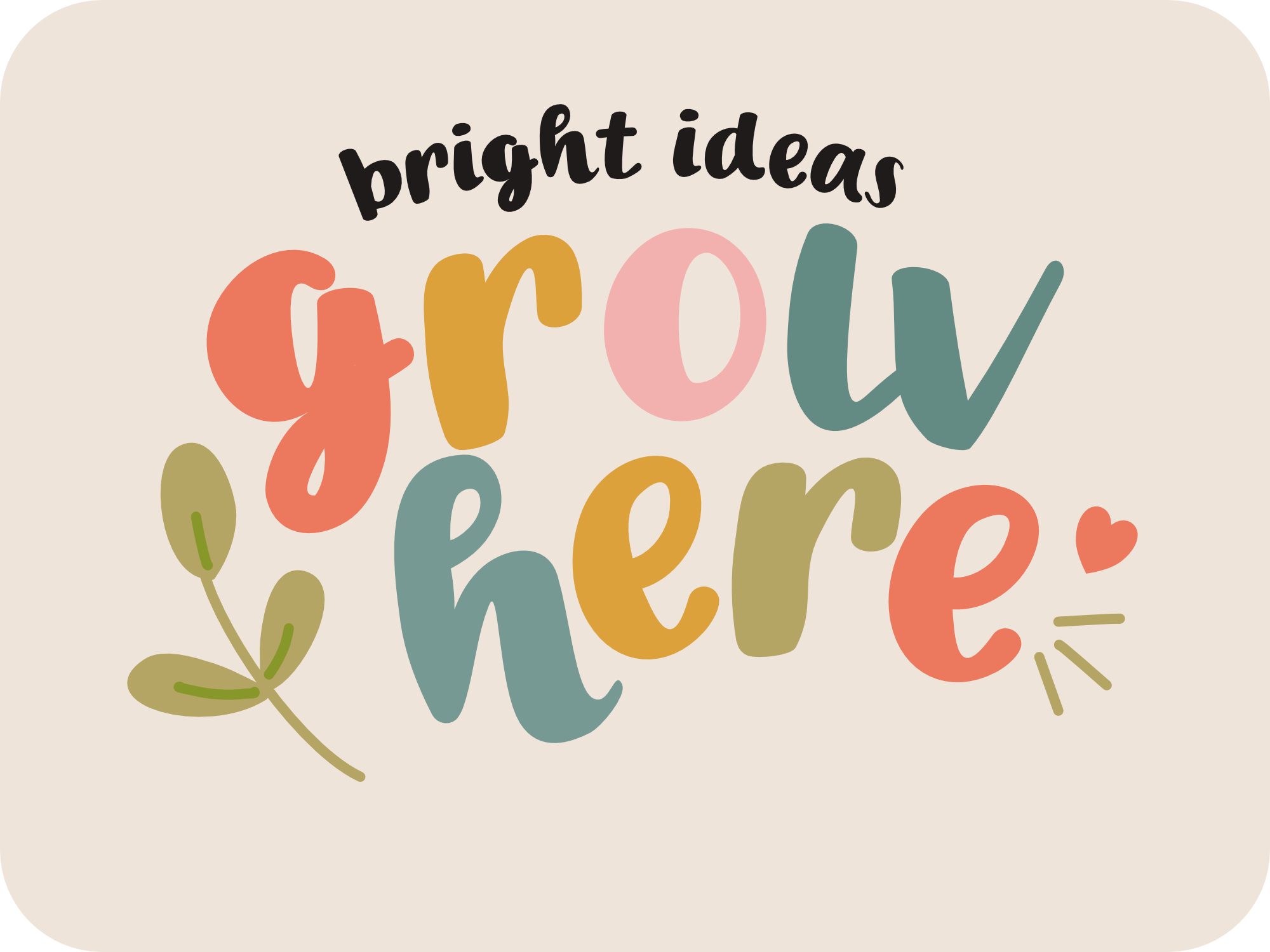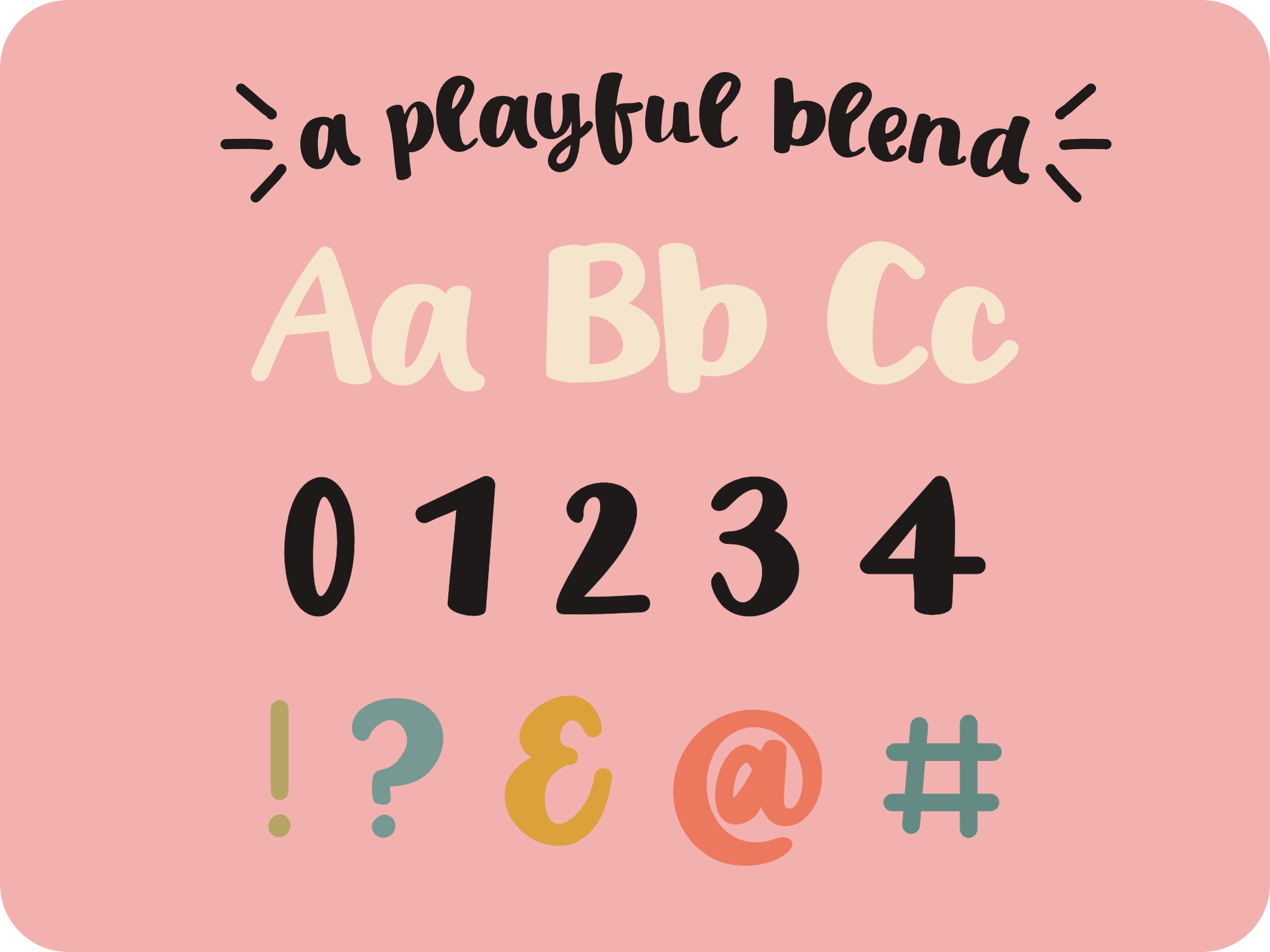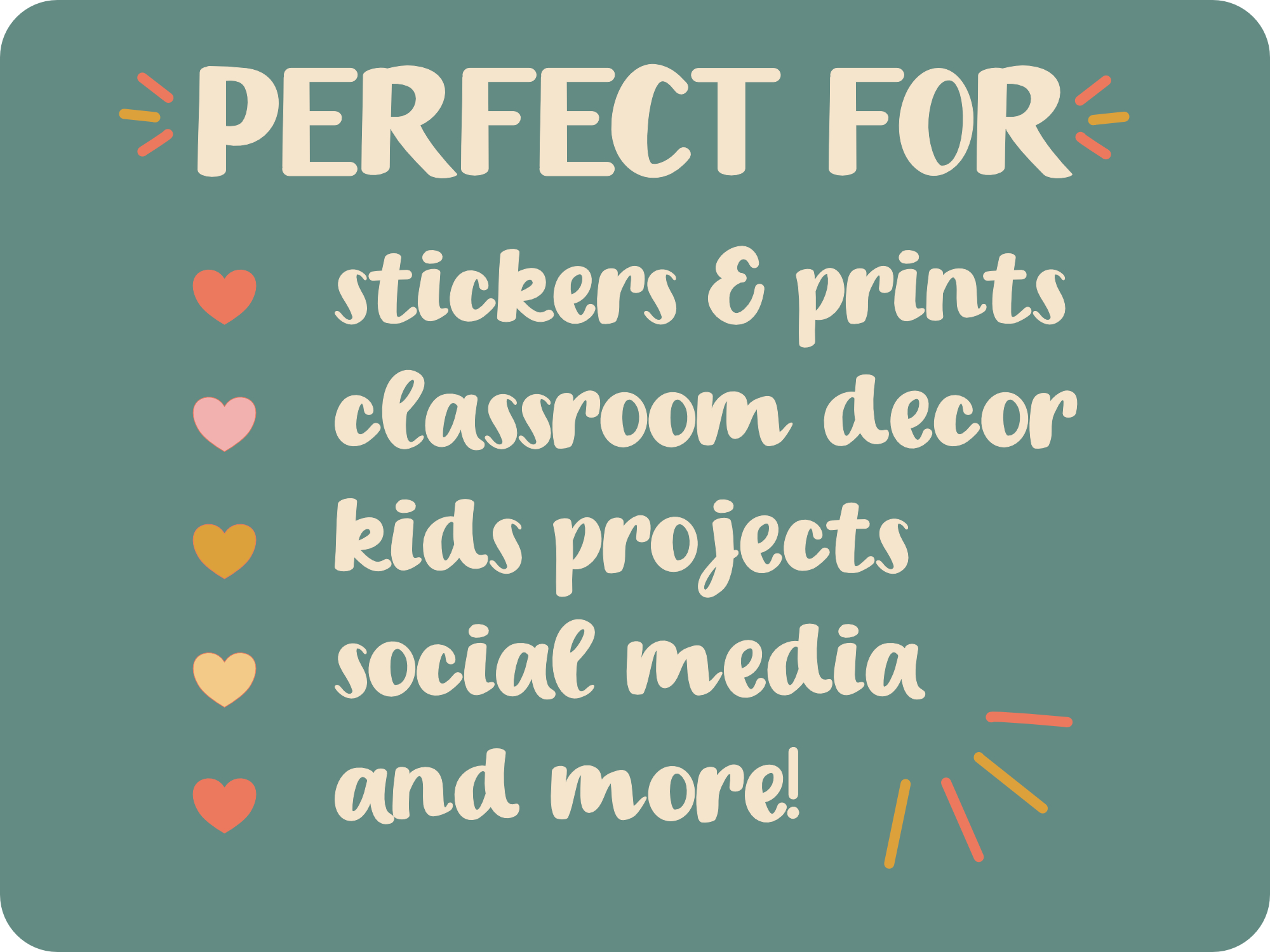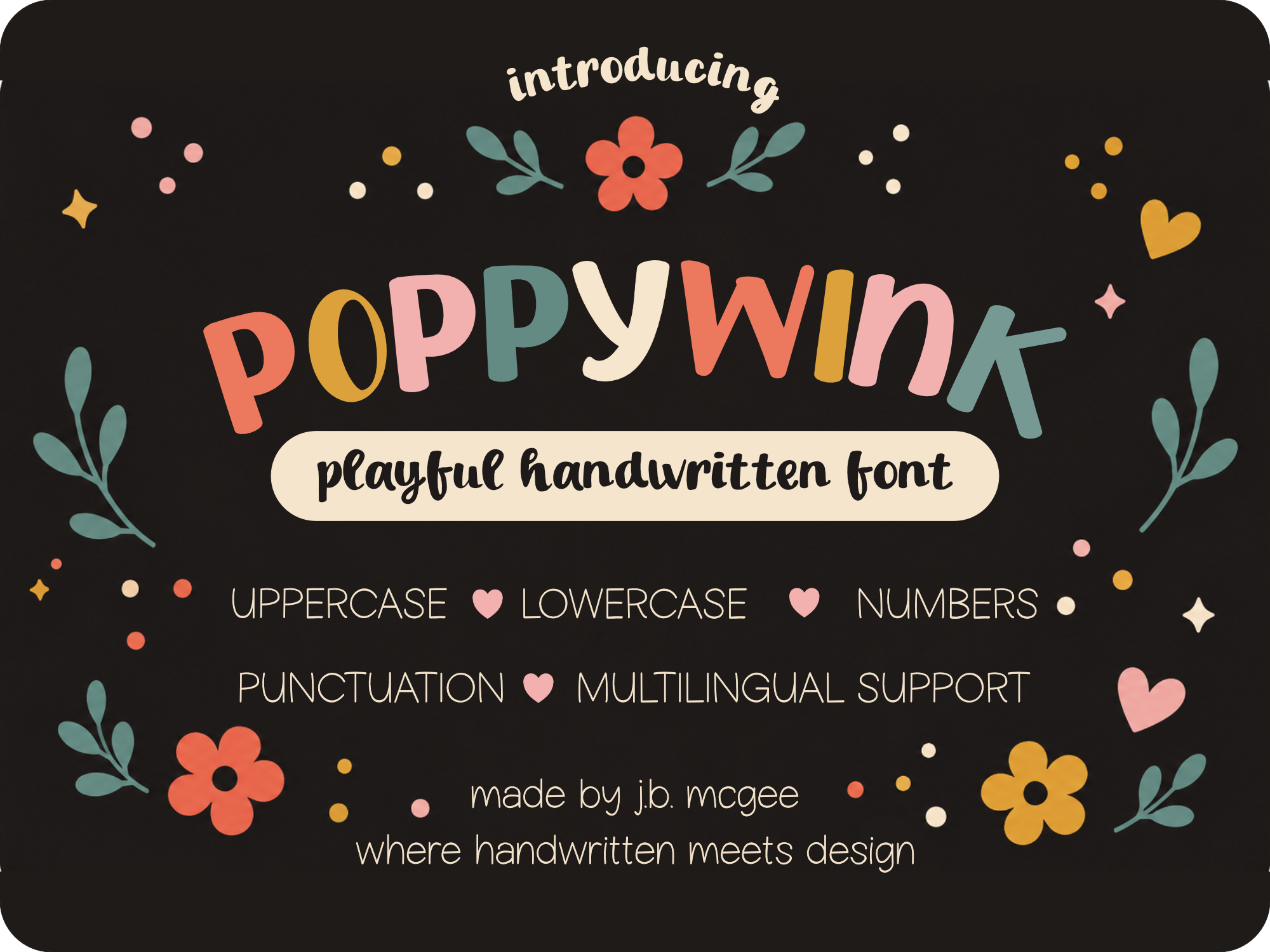
Poppywink Font
A quirky playful hybrid font
What makes Poppywink stand out:
• Rounded handwritten letterforms with playful variation
• Thick monoline strokes for a bold, readable look
• Quirky character shapes that add personality
• Balanced spacing that still reads clearly at smaller sizes
• Fun and expressive without feeling messy or overwhelming
Perfect for:
• Stickers and printable projects
• Teacher resources and classroom decor
• Children’s products and packaging
• Social media graphics
• Fun logos and playful branding
• Labels, planners, and craft projects
• Uppercase and lowercase letters
• Numbers and punctuation
• Symbols and special characters
• Standard multilingual support (as shown in previews)